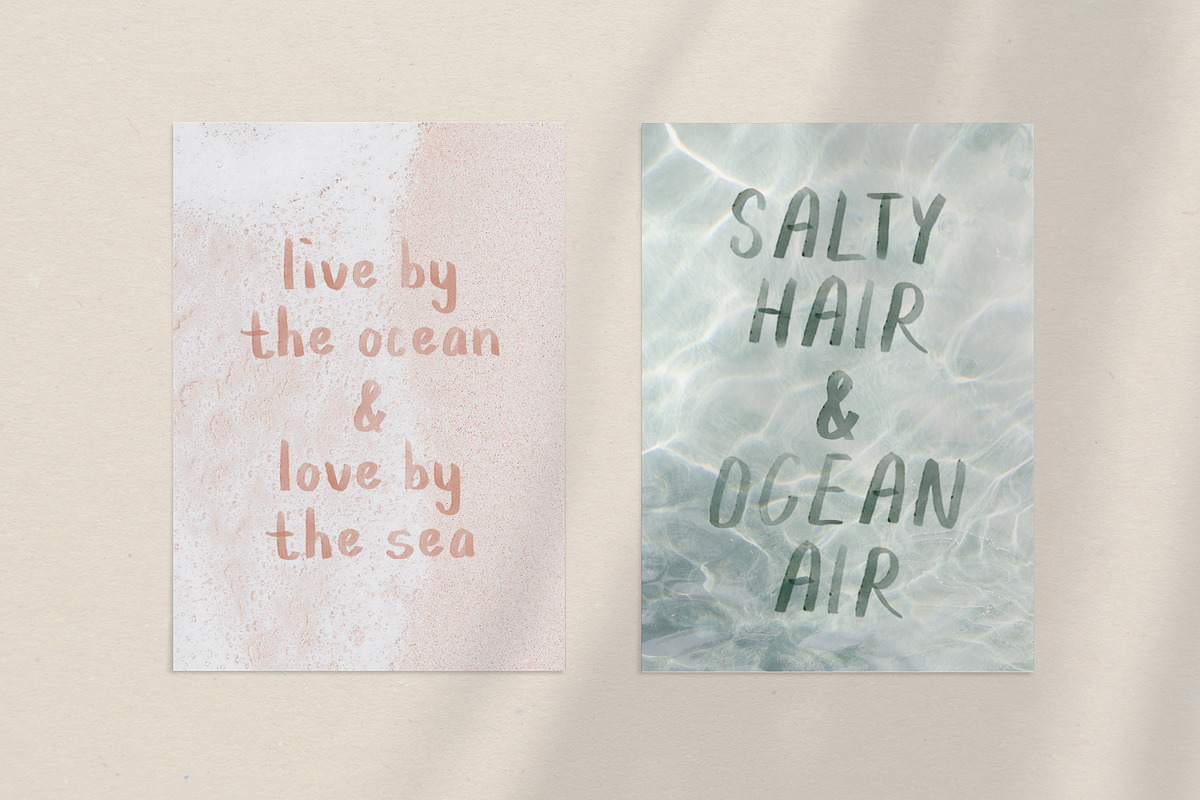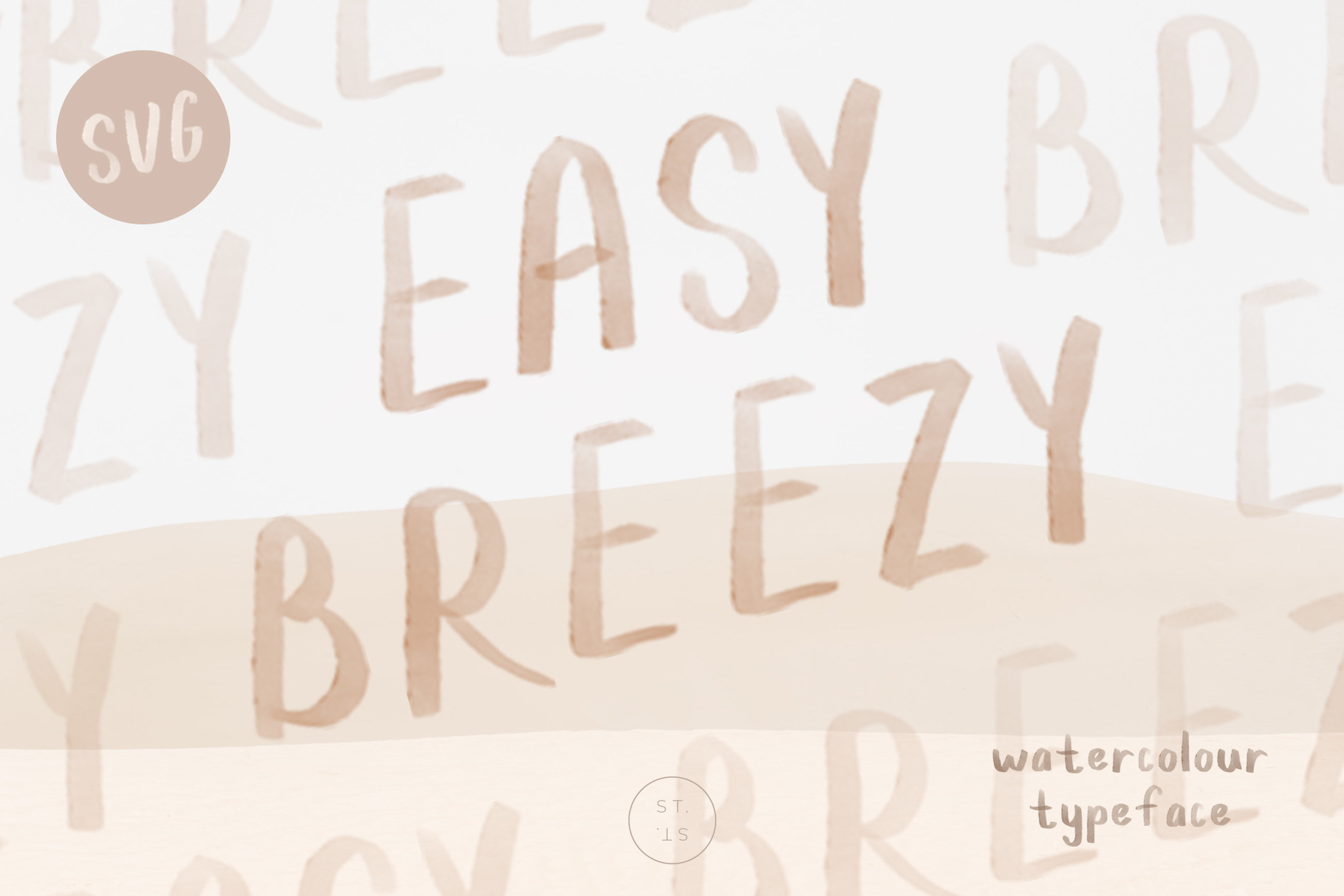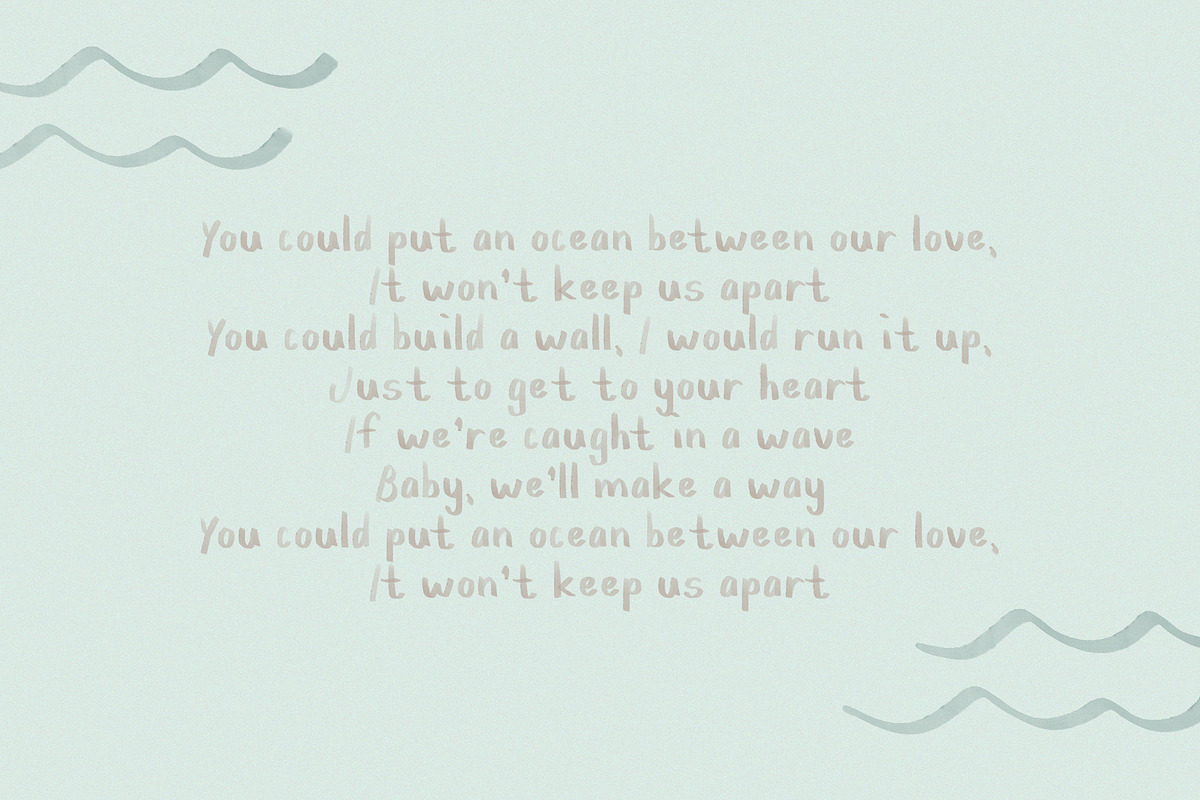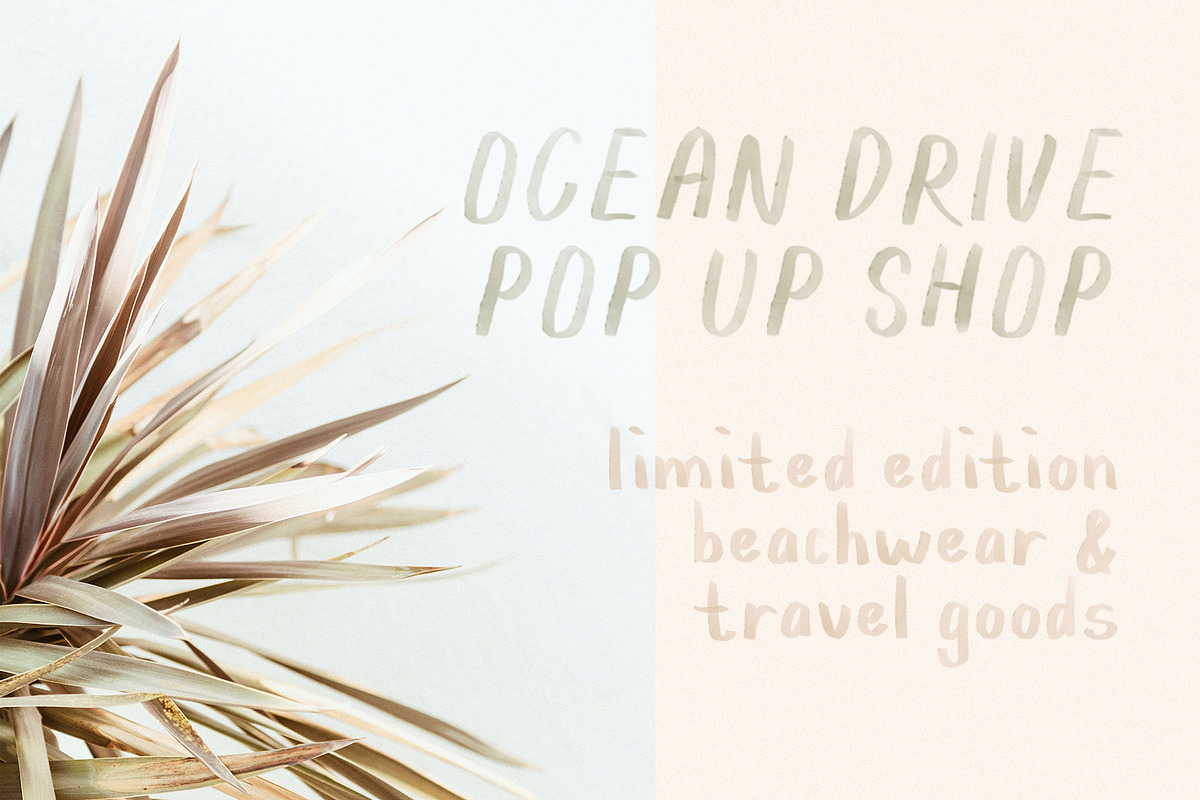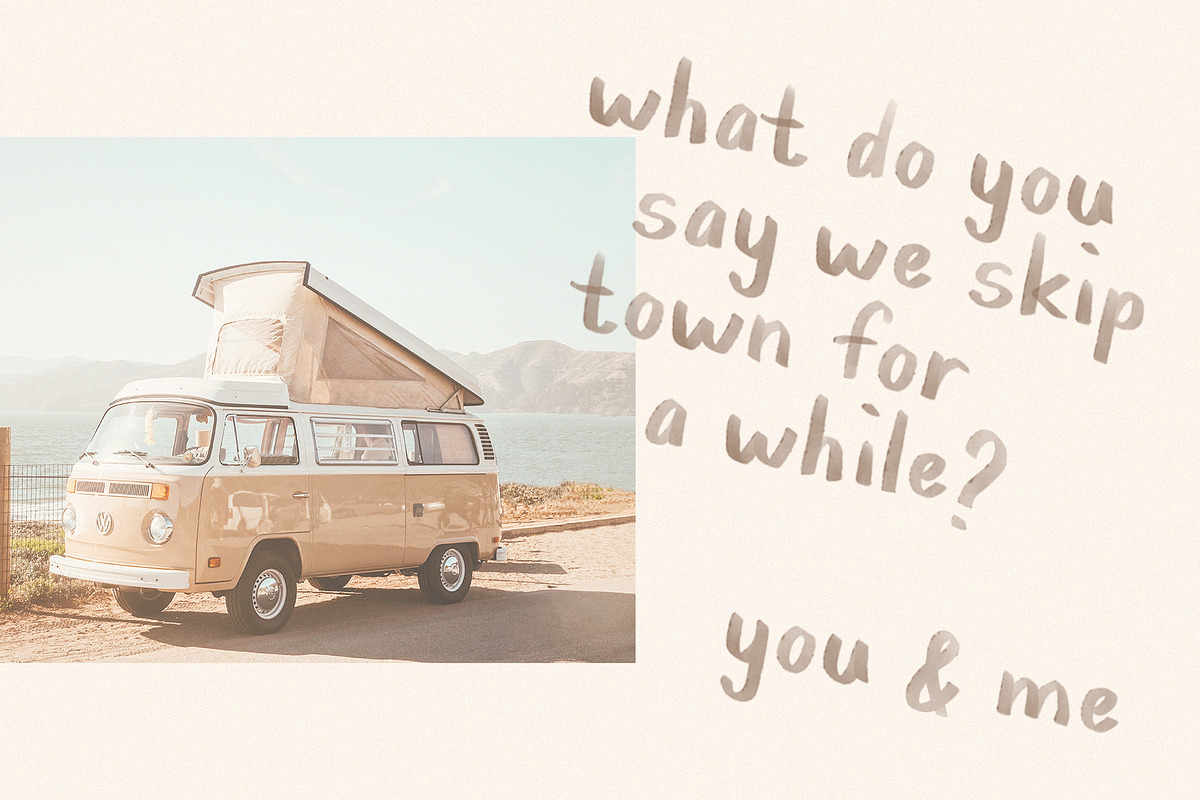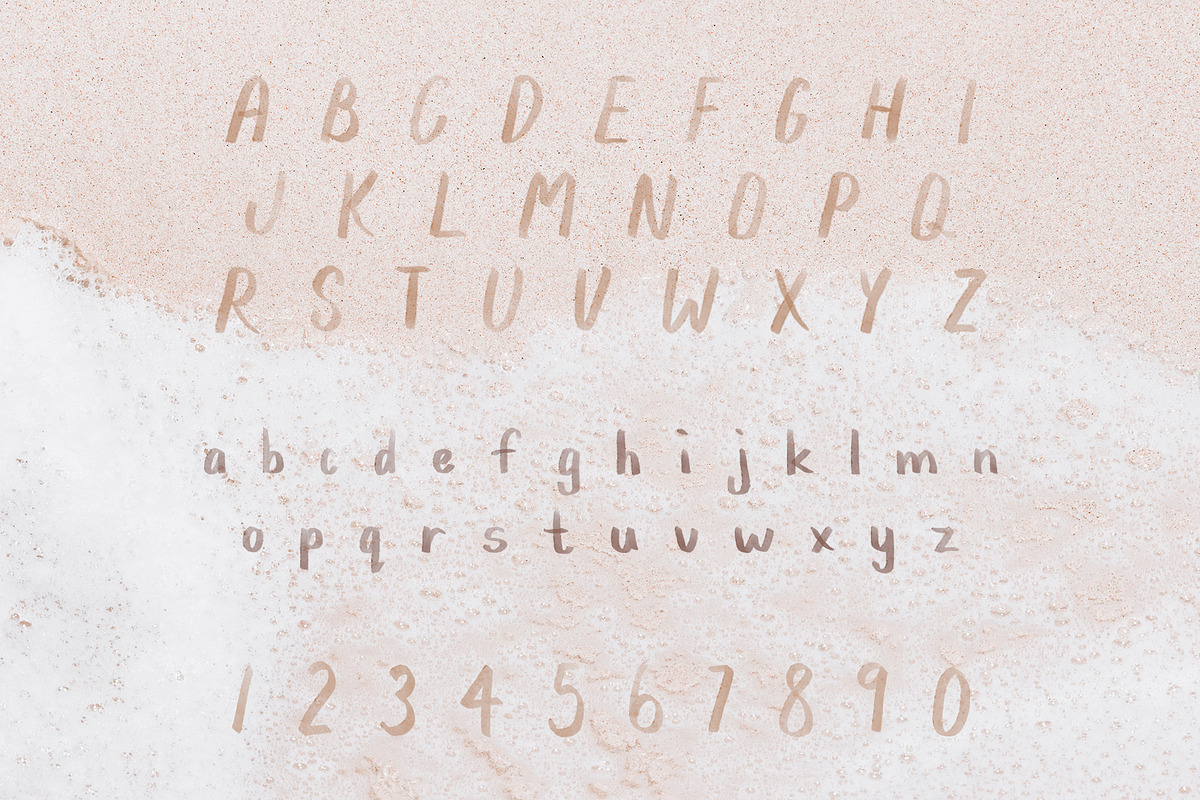
Easy Breezy SVG Watercolor Font
ABOUT EASY BREEZY SVG FONT:
Escape reality with this Watercolour-inspired SVG handwritten font that has a subtle texture and opacity that really gives such a unique and beachy vibe. This font is sure to give some dimension and personality to any design it's used in. Have a look through the previews above and get inspired by what you can create! The real Watercolour texture of the SVG fonts adds extra depth that regular fonts just can't offer.